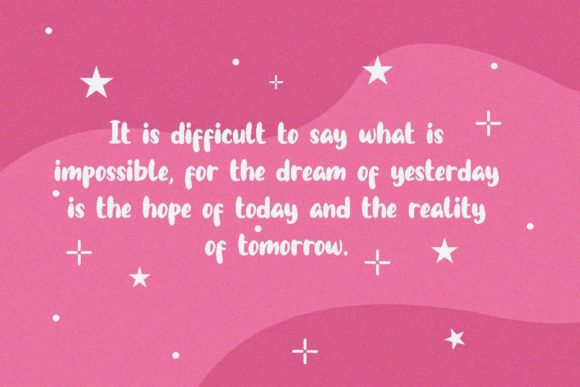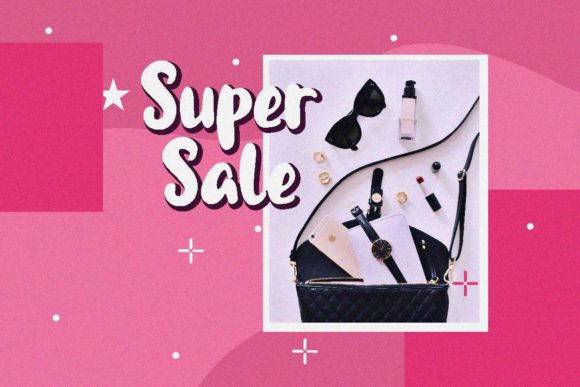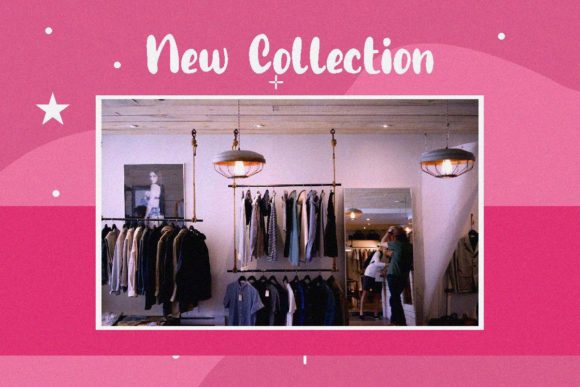
Introduction to Easter Love Font
Remember that moment when you stumbled upon the perfect design element, and your creative project suddenly came to life? It’s like hitting the jackpot, and all your ideas start flowing effortlessly. For designers, finding that one special resource can be a game-changer. And for those who love Easter, there’s a hidden gem waiting to be discovered.
Enter the Easter Love Font, a delightful handwritten font that will add a personal touch to your designs. With its unique style and versatility, this font is a must-have for any creative project. Whether you’re designing Easter-themed cards, social media graphics, or even a wedding invitation, the Easter Love Font is sure to make your ideas shine.
Key Features of Easter Love Font
- Unique Design: This Easter Love Font is designed with a playful and whimsical touch, perfect for creative projects that require a touch of springtime magic.
- Size and Style Variations: The font includes various size and style options, including bold, regular, and italic styles, allowing for flexibility in your design projects.
Honest Review: Easter Love Font
I recently had the chance to work with the Easter Love Font in one of my creative projects, and I must say it was a delightful experience. The font is perfect for any design related to Easter or spring, and it’s available as a free download, which is a huge plus.
What works well with this font is its versatility. It comes in a transparent background, making it easy to use on any background or design. The high-quality design of the font also ensures that it will look great on any screen or printed material. I also appreciate the variety of characters available, including numbers, symbols, and even some special Easter-themed characters. ✨
- Versatile and suitable for various designs
However, I do have to mention a few limitations. The font is only available in a few weights, which might limit its use in certain designs. Additionally, the font doesn’t come with a complete set of language characters, which could be a problem if you need to use it for a project that requires a specific language. ⚠️
Overall, I was really impressed with the Easter Love Font. It’s a great design resource that’s perfect for any creative project related to Easter or spring. While it has some limitations, I would definitely recommend it to anyone looking for a high-quality, free font.